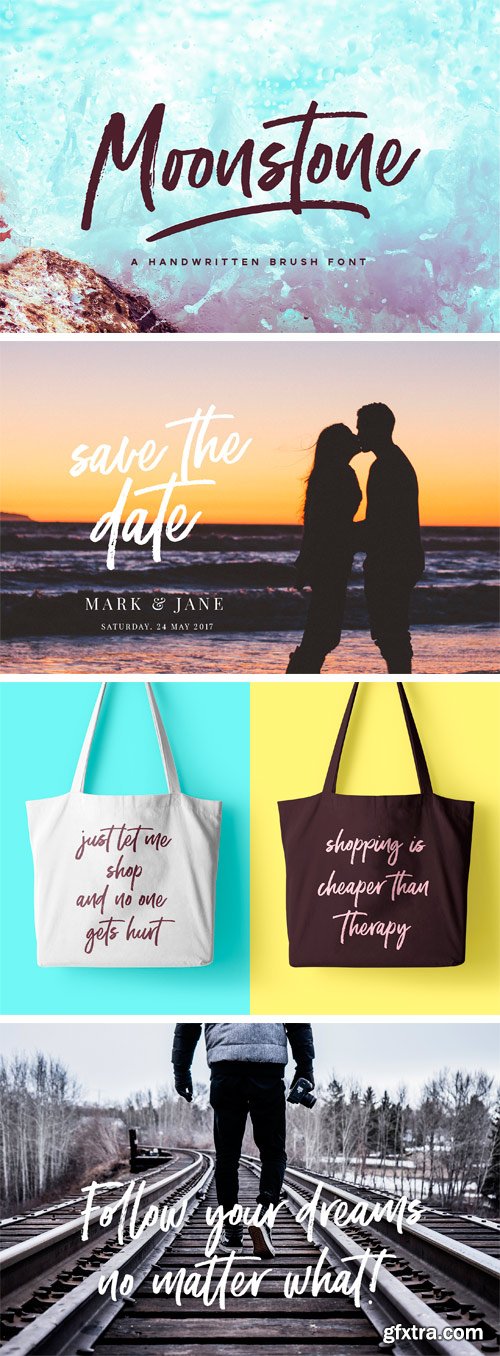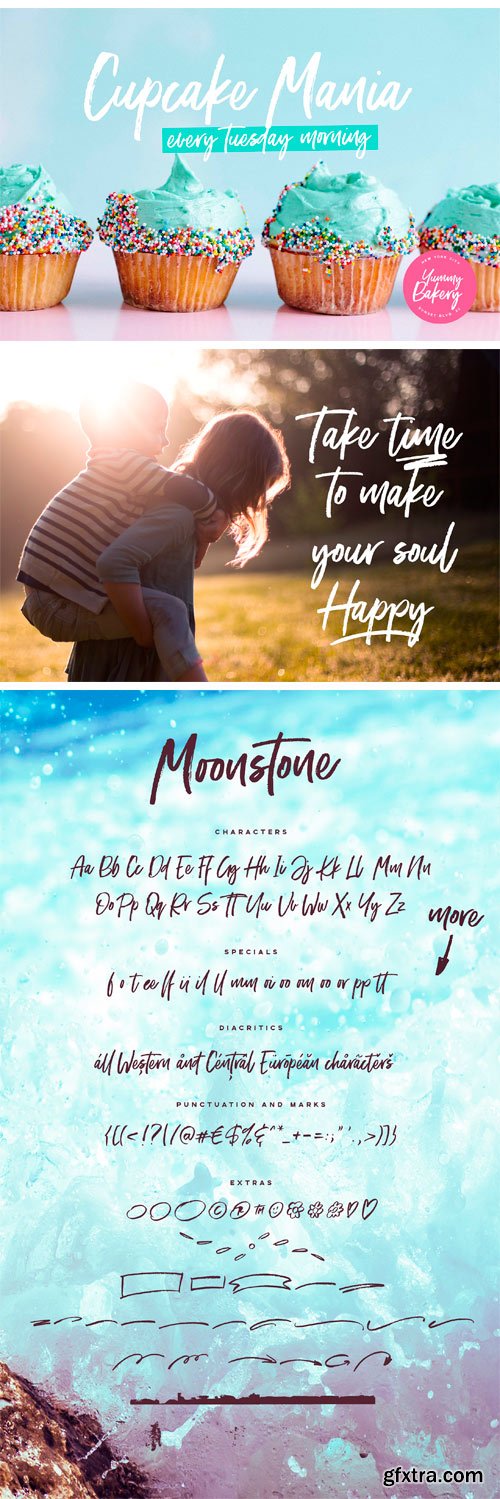
Moonstone is a unique handwritten brush font. Its unique flow and style makes it perfect to use for prints, logos, signatures, quotes, badges, labels, packaging design, blog headlines or simply use it to add a fancy text on a photo.